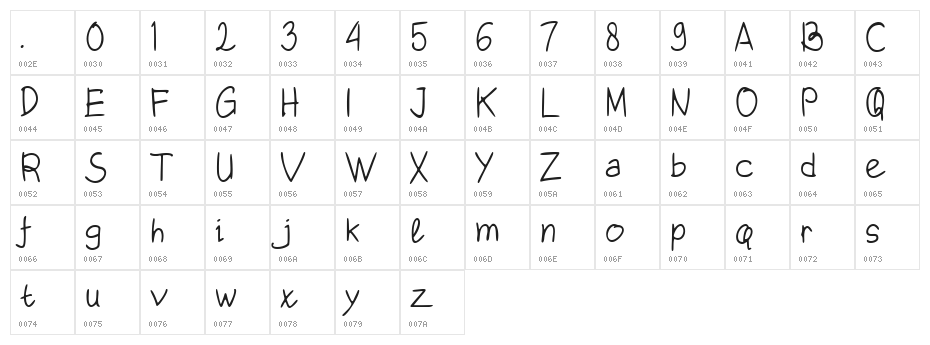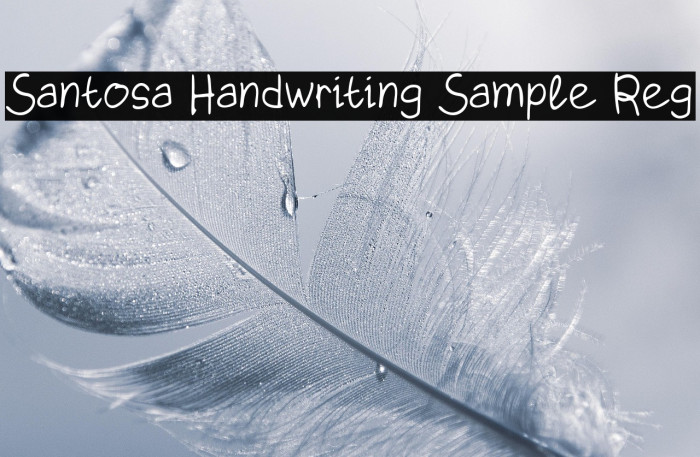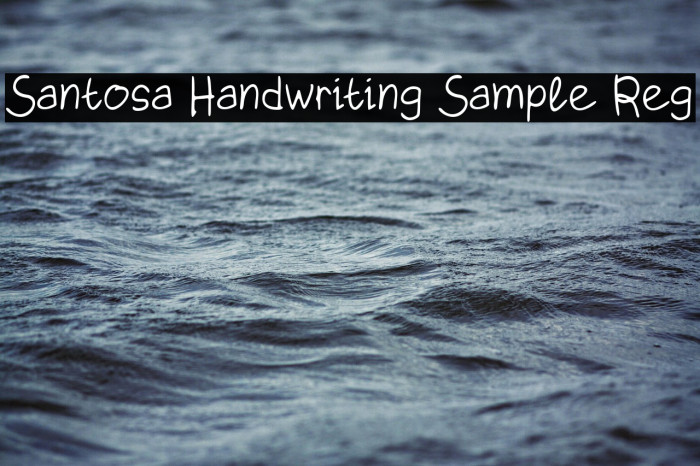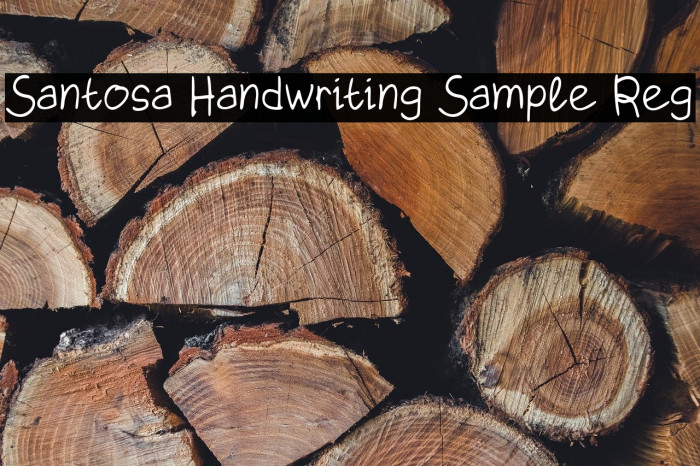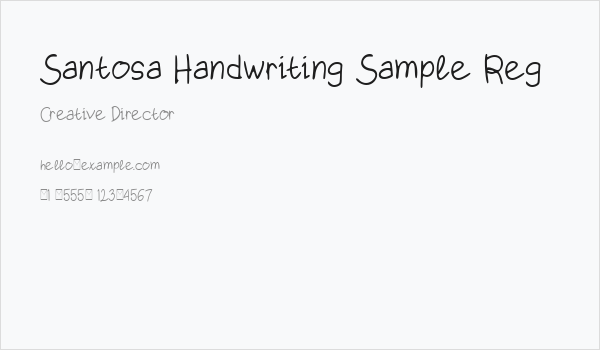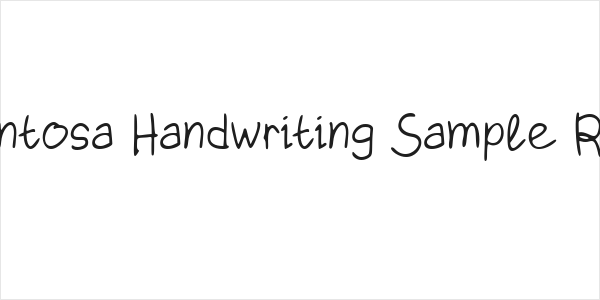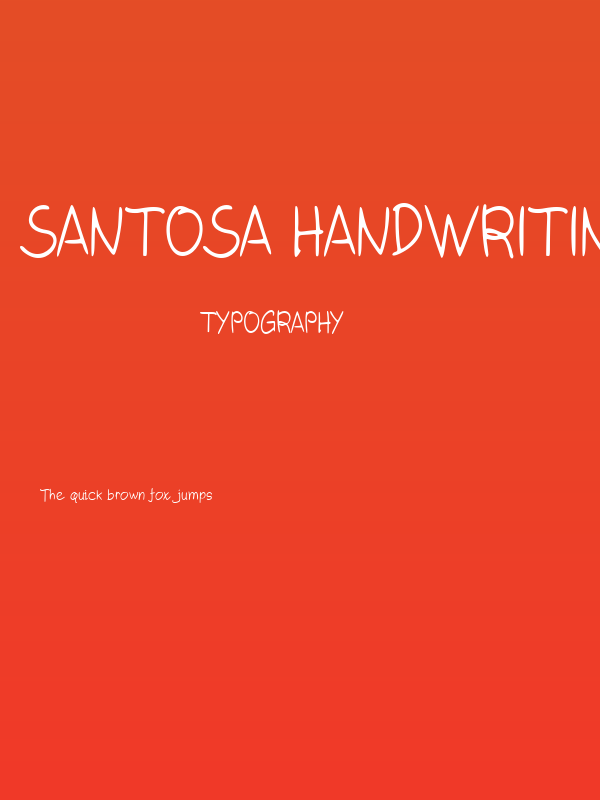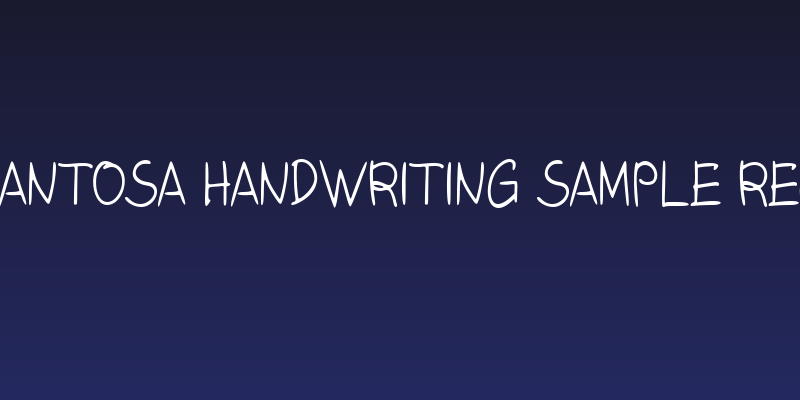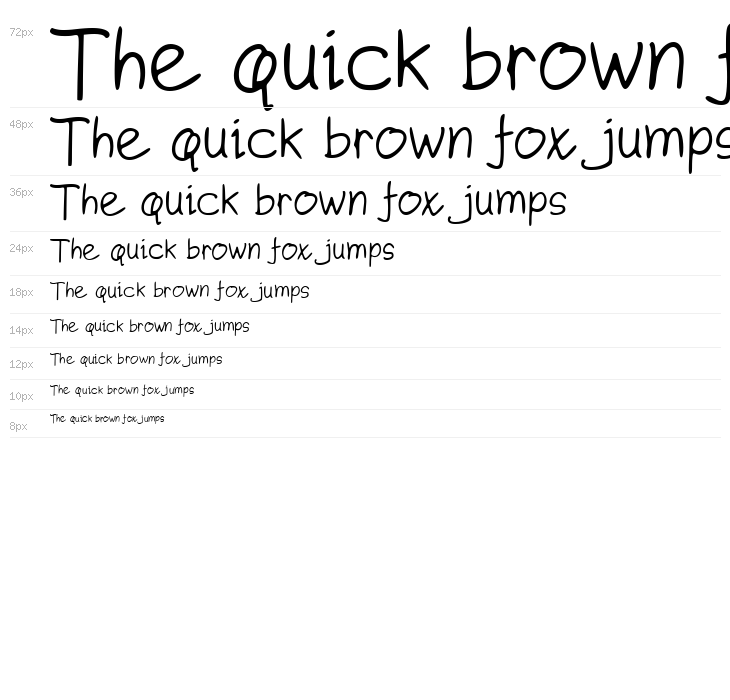
Santosa Handwriting Sample Reg Font
Santosa Handwriting Sample Reg Description
This font exudes a playful and casual handwritten style, characterized by its smooth, flowing lines and slightly irregular shapes that mimic natural handwriting. The uppercase letters are tall and slightly narrow, while the lowercase letters are more rounded and open, providing a friendly and approachable feel. The numerals are consistent with the overall style, maintaining the same playful and informal aesthetic. The font's design is versatile, making it suitable for a variety of creative projects where a personal touch is desired. Its legibility is maintained across different sizes, making it a great choice for both digital and print media.
| Use Case | Headlines, Invitations, Personal Branding |
| Proposed Projects | Ideal for greeting cards, invitations, personal branding, and creative projects requiring a personal touch. |